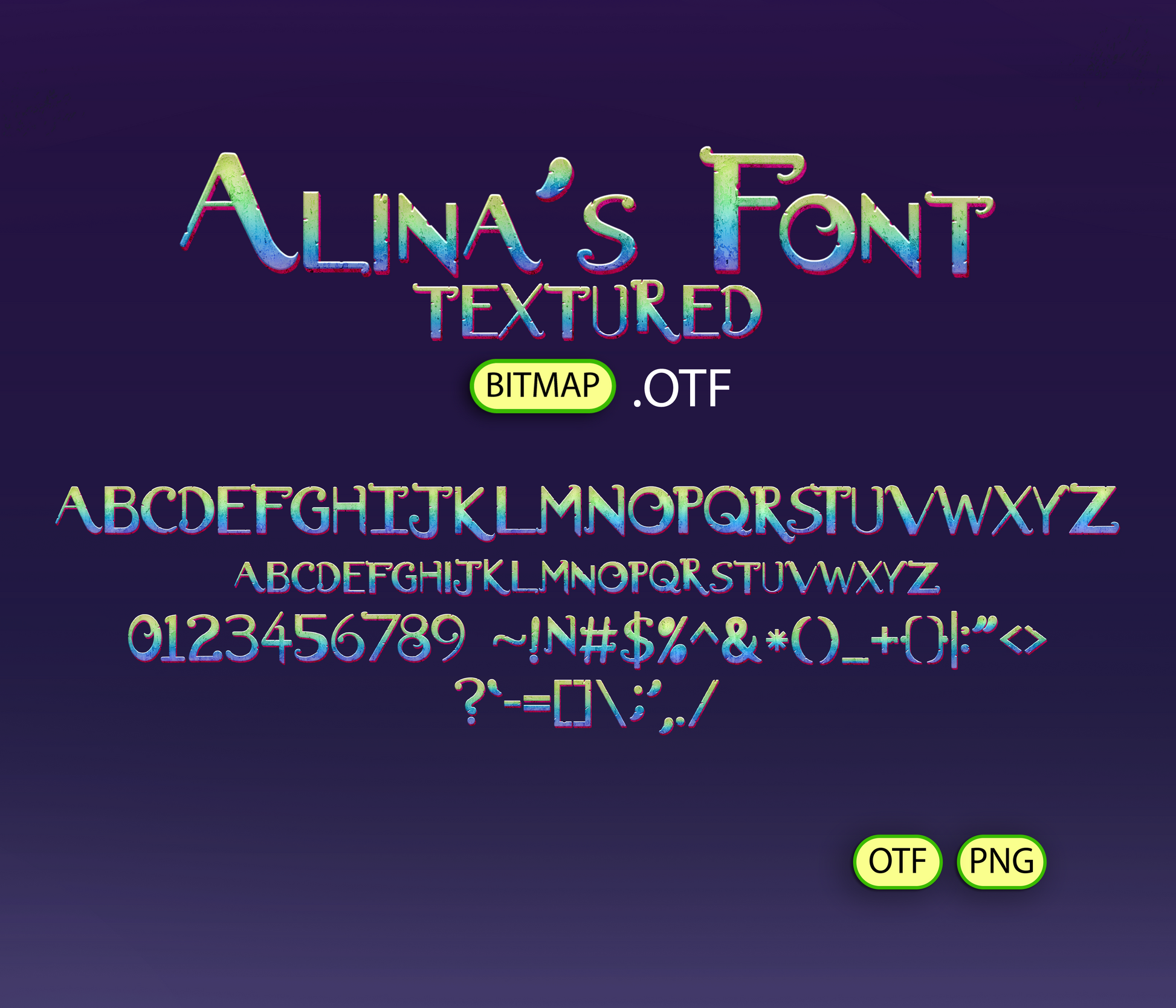
Magical Family Casa Font Textured
Immerse yourself in the enchanting world of a special Colombian family with our beautifully crafted font. This typeface captures the essence of the vibrant, colorful animated tale known for its magical realism and heartwarming story of family bonds. Perfect for party planners, designers, and fans alike, this font brings the warm, lively spirit of the beloved animated feature to your creative projects.
What font is the Magical Family Casa font?
Picture a typeface that embodies the movie's unique style - flowing, ornate, and brimming with Latin American flair. Our font features elegant, hand-drawn-style letterforms that mirror the film's aesthetic, complete with flourishes reminiscent of traditional Colombian art. It includes a comprehensive character set with alphabets, numbers, and special symbols, offering a versatile solution for various design needs.
What You Can Do With Magical Family Casa Textured Font
1. Textured and Non-Textured Variants: Available in both a vibrant, colorful style reminiscent of the movie's look, and a clean version for versatile use
The Magical Family Casa font is more than just a typeface; it's a celebration of the heartwarming animated feature that has captivated audiences with its message of family, identity, and the magic within us all.